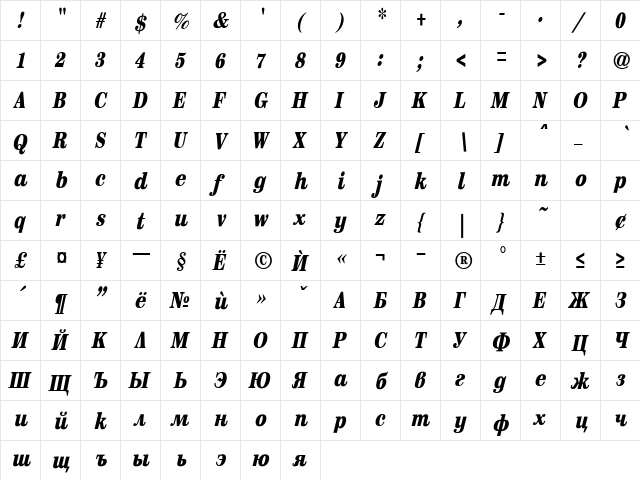
SentryCondBlack Italic Font Preview
Design Context for SentryCondBlack Typeface
SentryCondBlack takes a measured approach to typography — its balanced proportions and neutral character make it a reliable workhorse for both digital and print work. The slanted form adds forward momentum and visual energy. The condensed width makes it efficient for tight spaces without sacrificing legibility.
Pro Tip: Try SentryCondBlack for annotation and caption copy alongside an upright companion — the contrast in angle creates a dynamic but ordered typographic system.